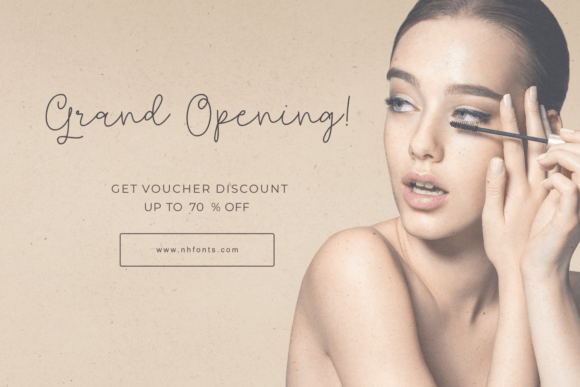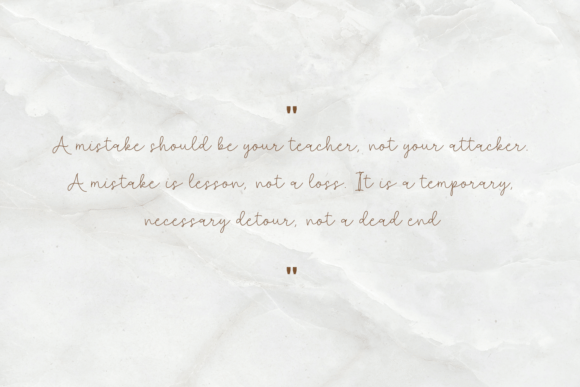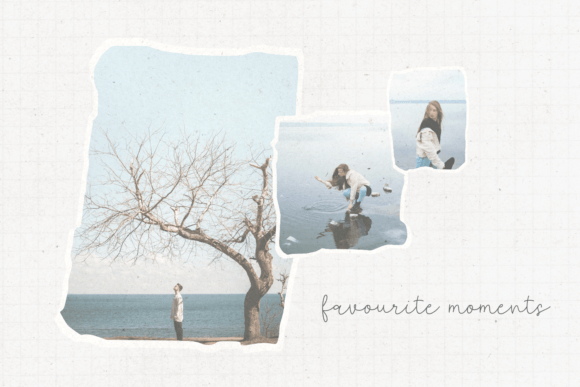
Queasily Font
Queasily is a superb single line font that will make your work stand out through its elegant and simple lines. It is perfect for product packaging, branding project, magazine covers, social media, wedding, or just used to express words above the background.